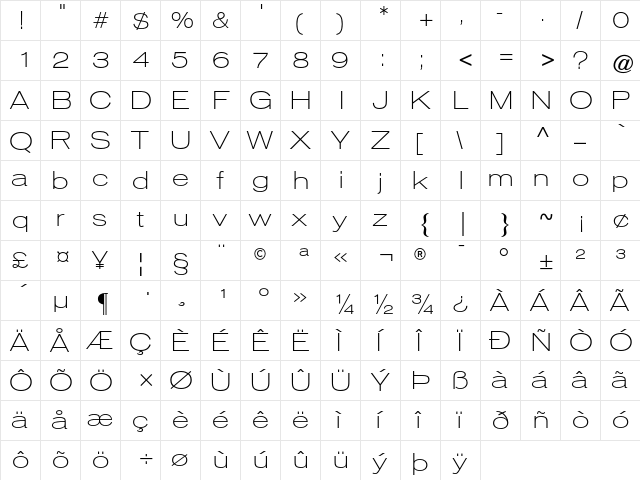
Gothic Extended AT ExtraLight Regular Font Preview
Design Context for Gothic Extended AT ExtraLight Typeface
Gothic Extended AT ExtraLight takes a clean, functional approach — its unadorned letterforms prioritise legibility and work reliably across screen and print environments. Its slender proportions lend an understated elegance to any composition.
Font Pairing: Works well alongside a characterful serif or display font that can carry the expressive load while Gothic Extended AT ExtraLight handles the functional copy.
Pro Tip: Use Gothic Extended AT ExtraLight with generous tracking and line-height for the most luxurious effect — light sans-serifs reward spacious, considered layouts.